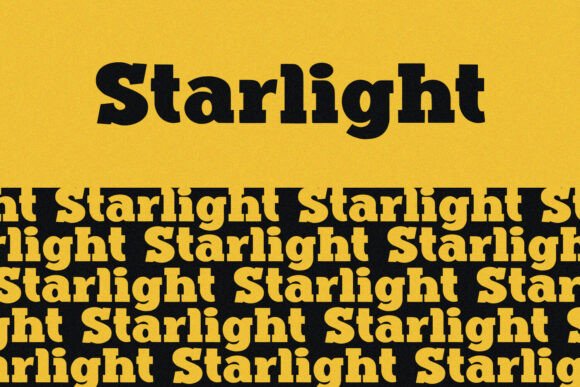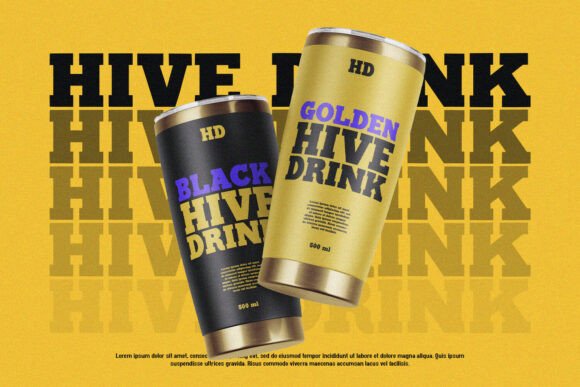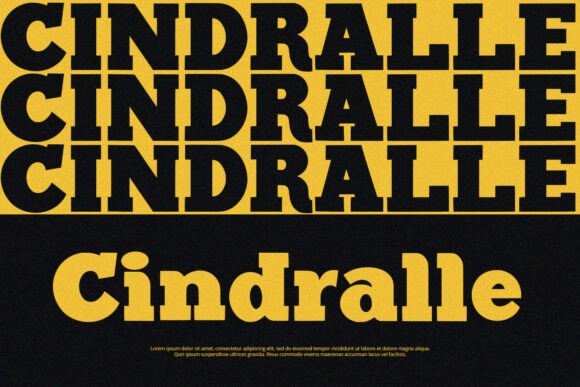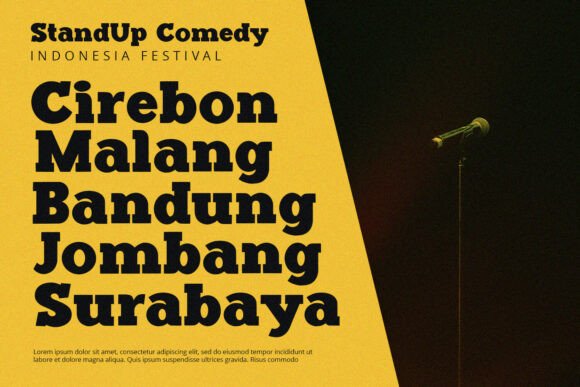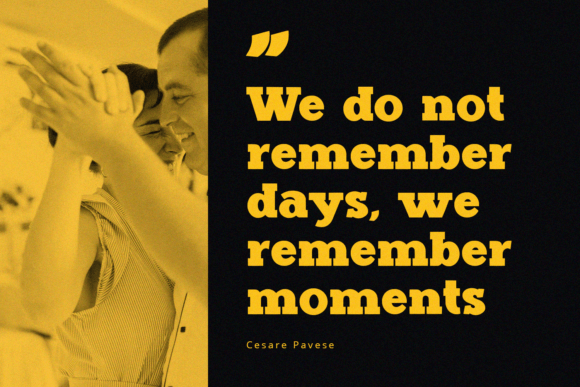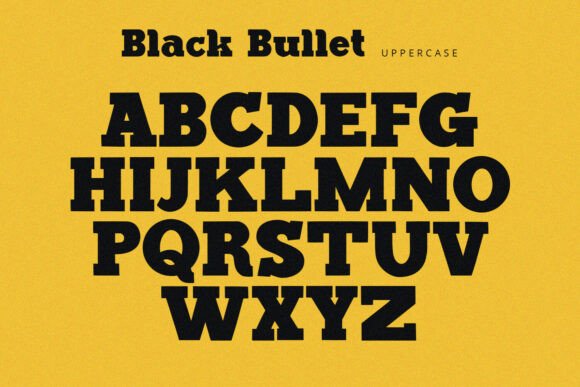
Introducing Black Bullet Font: The Bold Slab-Serif Display Font with a Retro Twist
Are you looking for a font that makes a statement? A font that exudes confidence, strength, and a touch of vintage charm? Look no further than Black Bullet, a bold slab-serif display font designed to make your typography speak loud and proud. Inspired by classic slab serif styles, Black Bullet is the perfect choice for designers and crafters who want to add a heavy, commanding presence to their projects.
A Font with a Strong Retro Personality
Black Bullet’s design is rooted in the rich history of slab serif typography. With its thick strokes, geometric proportions, and subtle vintage quirks, this font is sure to transport you back to a bygone era. The bold, blocky shape of Black Bullet is reminiscent of classic posters, logos, and advertisements from the past, but with a refined, modern twist that makes it perfect for contemporary designs.
Key Features of Black Bullet Font
- Bold and Confident: Black Bullet’s heavy strokes and geometric proportions make it an excellent choice for headlines, titles, and designs that require a strong visual impact.
- Uppercase and Lowercase Sets: Black Bullet comes with both uppercase and lowercase sets, providing you with the flexibility to create a wide range of designs, from bold statements to more subtle typography.
- Retro yet Refined: Black Bullet’s vintage-inspired design is balanced by a refined, modern aesthetic that makes it suitable for a variety of projects, from retro-themed designs to modern editorial layouts.
- Legible and Clear: Despite its bold design, Black Bullet remains highly legible, making it perfect for designs that require both style and clarity.
Use Cases for Black Bullet Font
Black Bullet is an incredibly versatile font that can be used in a wide range of projects, including:
- Impactful Headlines: Use Black Bullet to create bold, attention-grabbing headlines that demand attention.
- Poster Designs: Black Bullet’s bold design makes it perfect for poster designs, flyers, and other print materials that require a strong visual impact.
- Logo Work: Black Bullet’s unique blend of retro charm and modern refinement makes it an excellent choice for logos, branding, and identity designs.
- Packaging: Use Black Bullet to add a bold, eye-catching touch to your packaging designs, product labels, and more.
- Editorial Titles: Black Bullet is perfect for editorial titles, magazine layouts, and other designs that require a strong, confident typography.
Why Choose Black Bullet Font?
So why choose Black Bullet over other fonts? Here are just a few reasons why Black Bullet stands out:
- Maximum Visual Impact: Black Bullet is designed to make a statement, with a bold, confident design that’s sure to grab attention.
- Flexibility: With both uppercase and lowercase sets, Black Bullet provides you with the flexibility to create a wide range of designs.
- Retro Charm: Black Bullet’s vintage-inspired design adds a touch of nostalgia and charm to your designs, setting them apart from more generic fonts.
- Legibility: Despite its bold design, Black Bullet remains highly legible, making it perfect for designs that require both style and clarity.
In conclusion, Black Bullet is a bold slab-serif display font that’s perfect for designers and crafters who want to add a heavy, commanding presence to their projects. With its thick strokes, geometric proportions, and subtle vintage quirks, Black Bullet is sure to make a statement. Whether you’re designing for a retro brand, a sports team, or a striking print layout, Black Bullet delivers strength, legibility, and undeniable style. So why settle for a generic font when you can make a statement with Black Bullet?